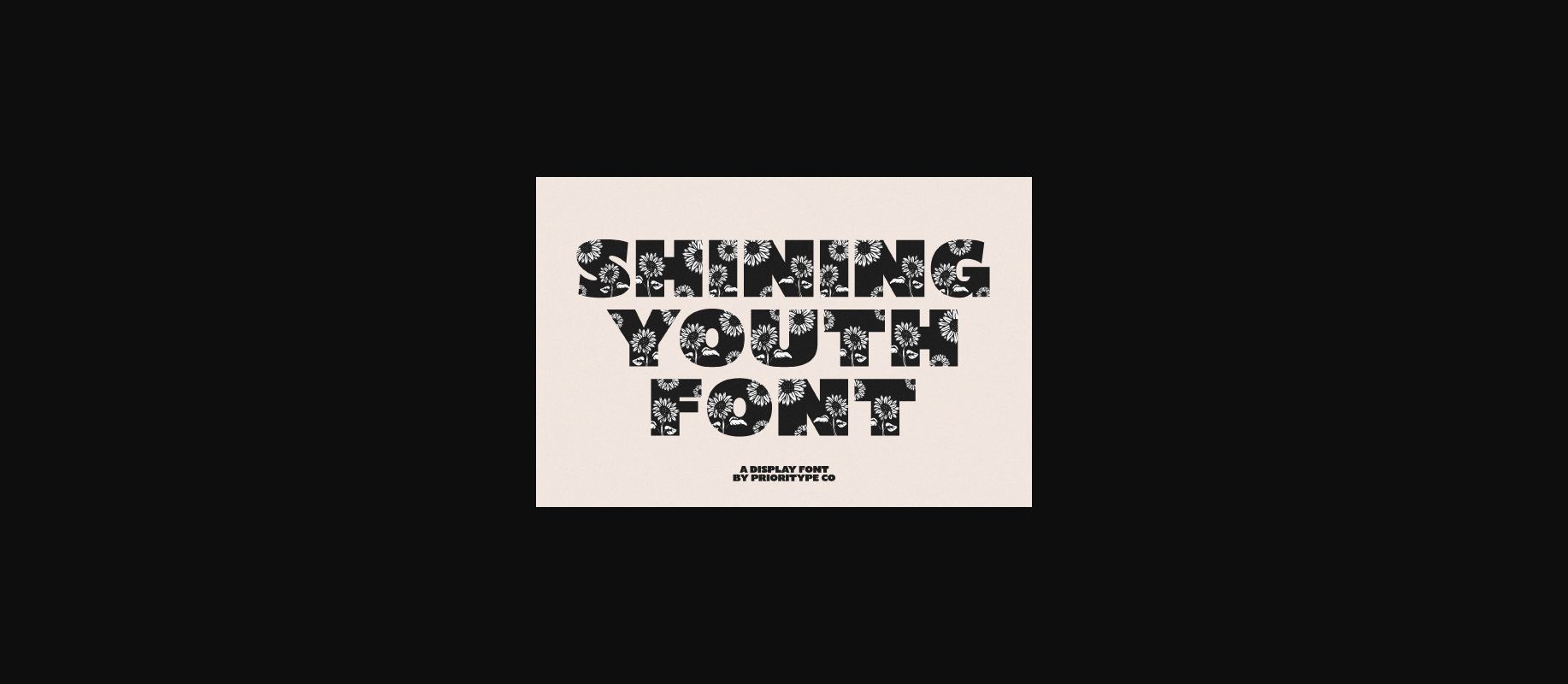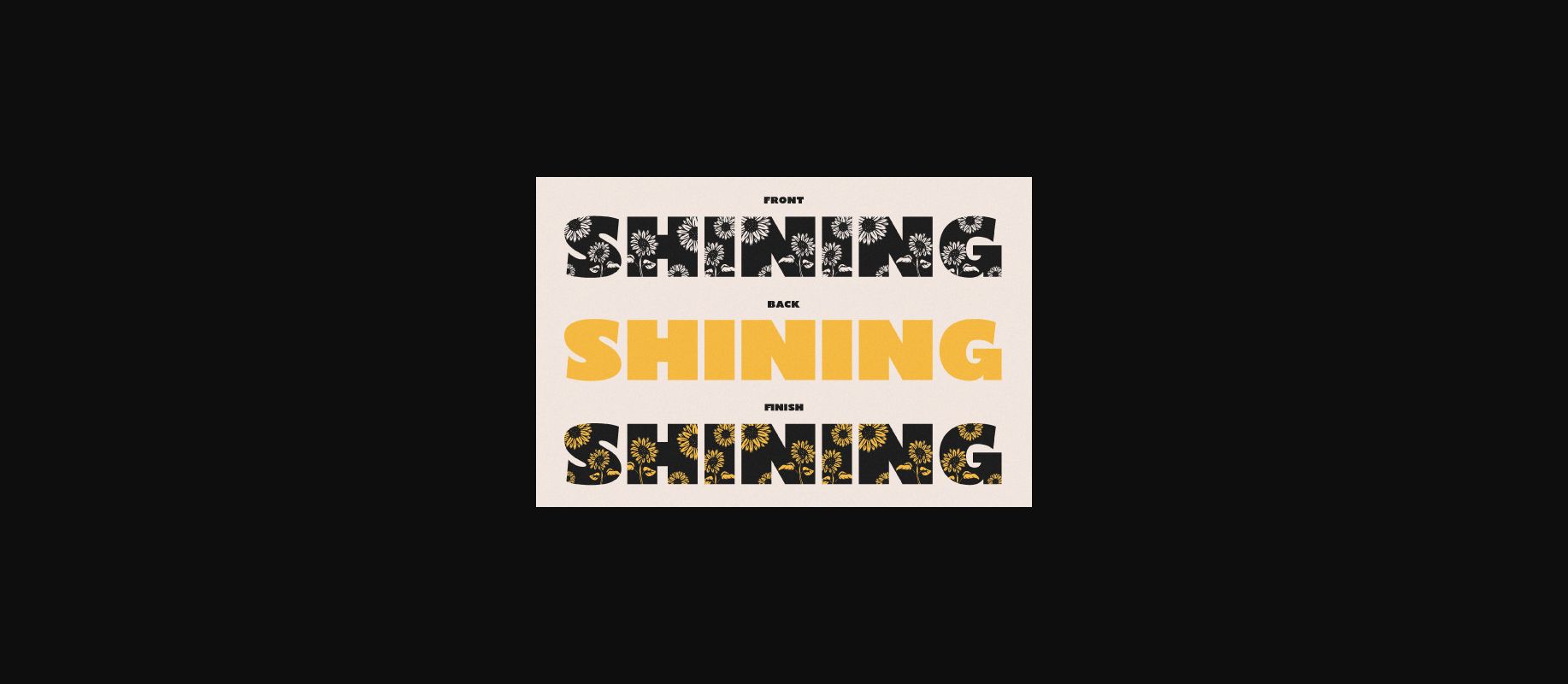
About Shining Youth Font
Shining Youth is a fun and cool looking decorative font, featuring delicate flowers on each character. It is perfect for product packaging, branding project, magazine covers, social media, wedding, or just used to express words above the background.